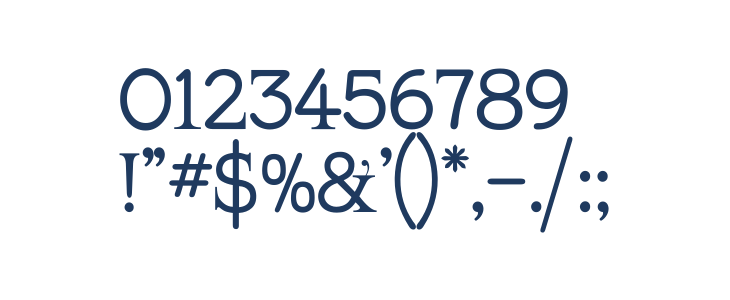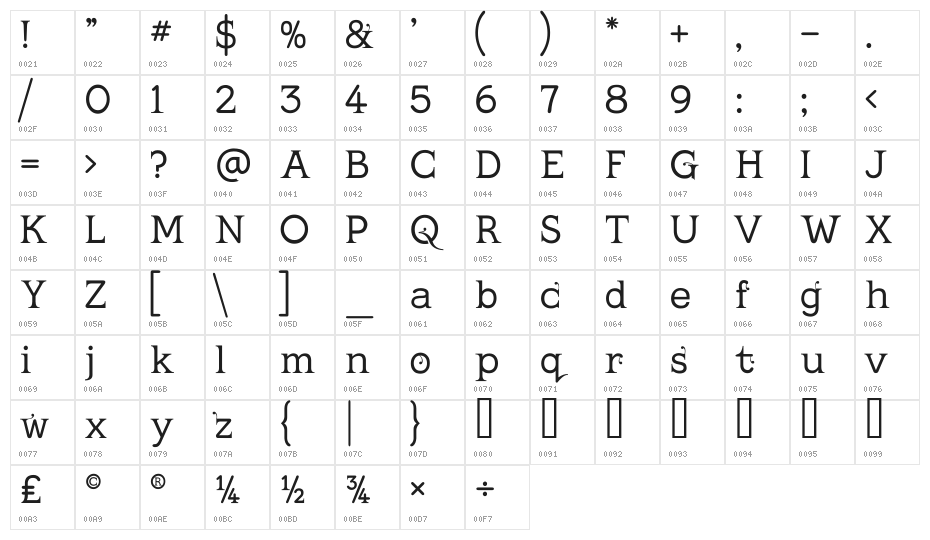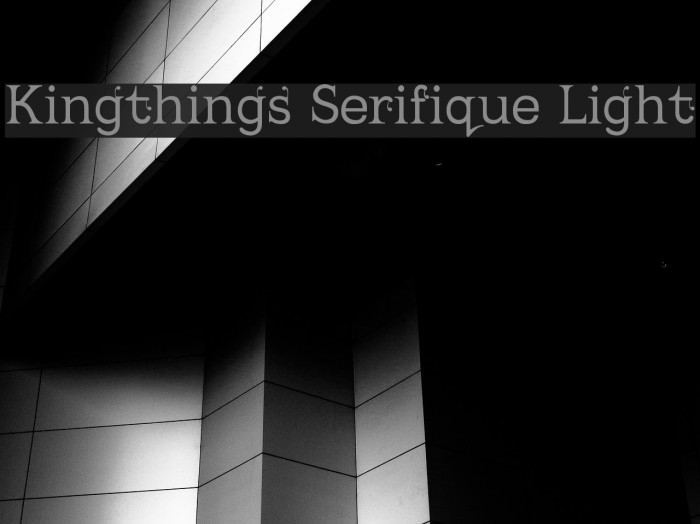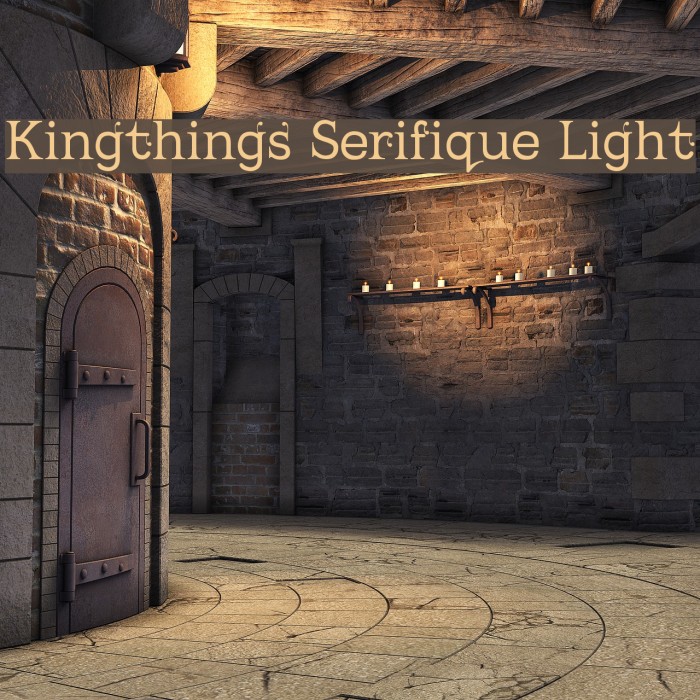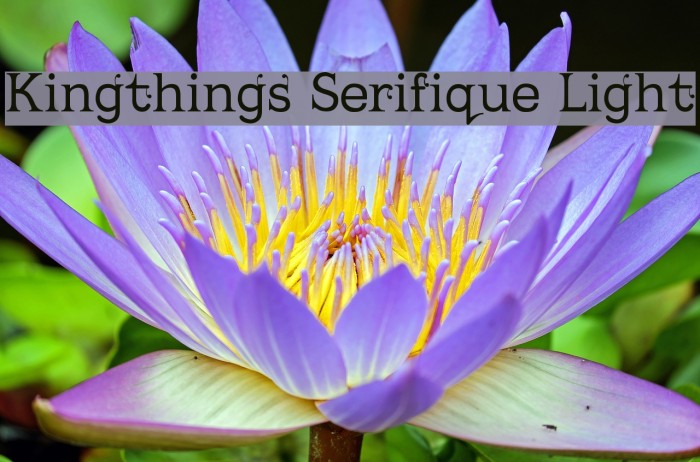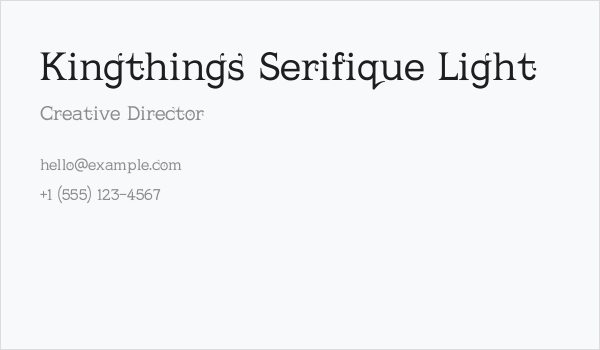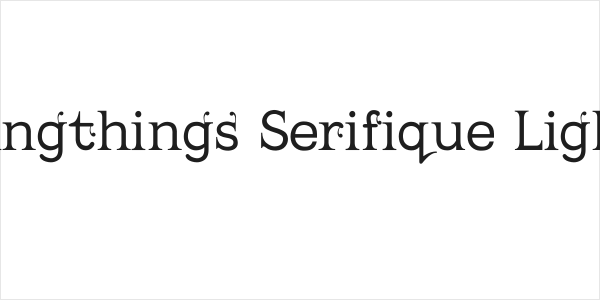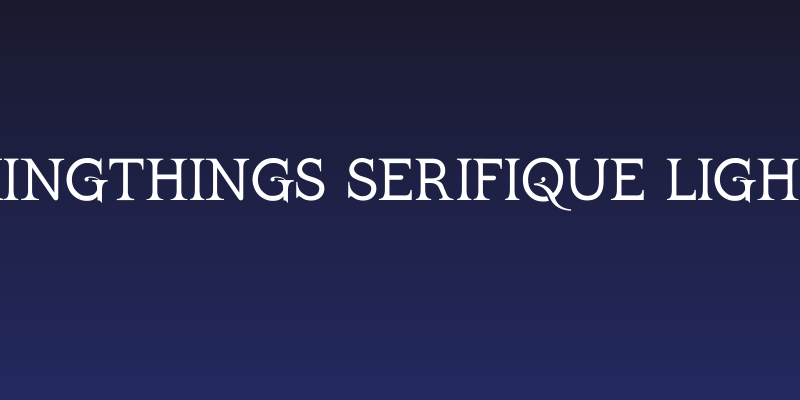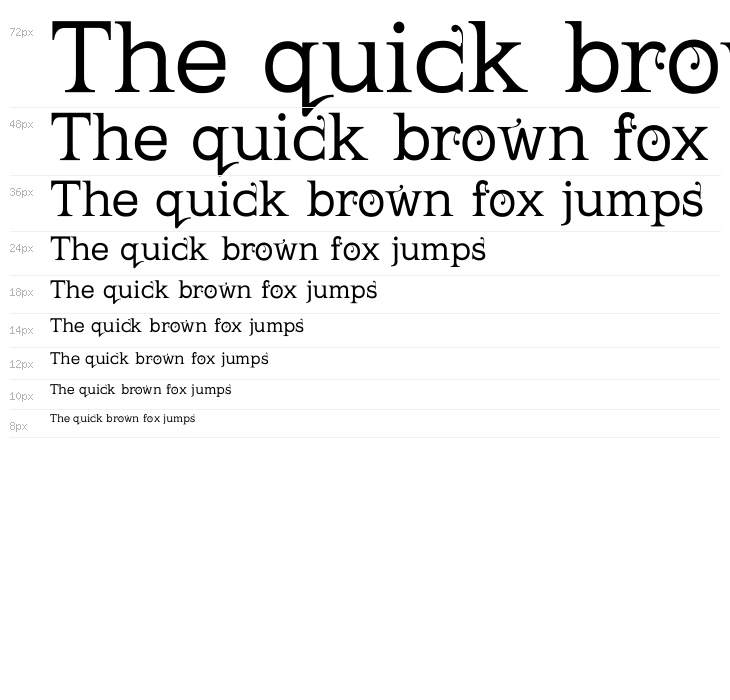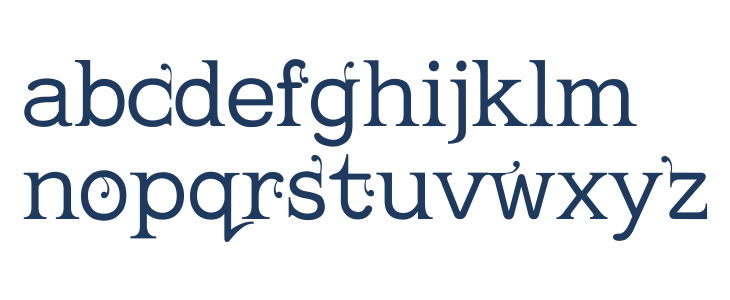
Kingthings Serifique Light Font
Kingthings Serifique Light Description
This font features a classic serif style with elegant curves and a light weight, giving it a sophisticated and refined appearance. The serifs are pronounced, adding a touch of traditional charm, while the overall design maintains a modern sensibility. The uppercase letters are bold and commanding, while the lowercase letters are more delicate, creating a pleasing contrast. Numbers and special characters are designed with the same attention to detail, ensuring consistency across all glyphs. The font's light weight makes it suitable for projects that require a touch of elegance without overwhelming the design.